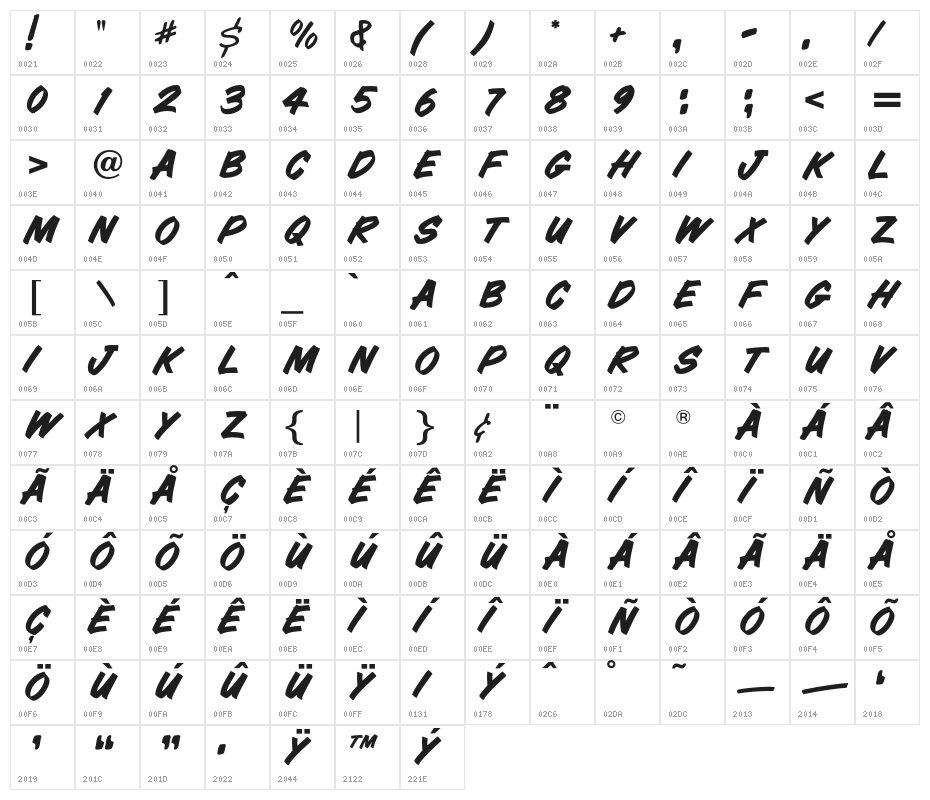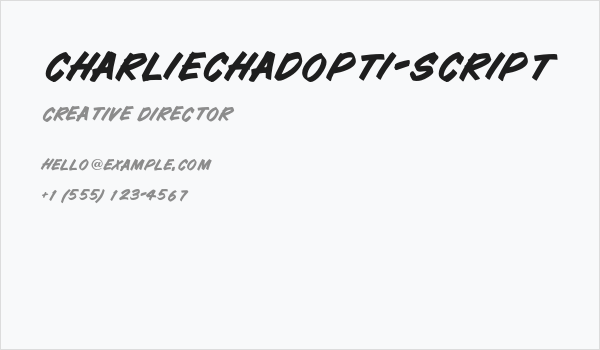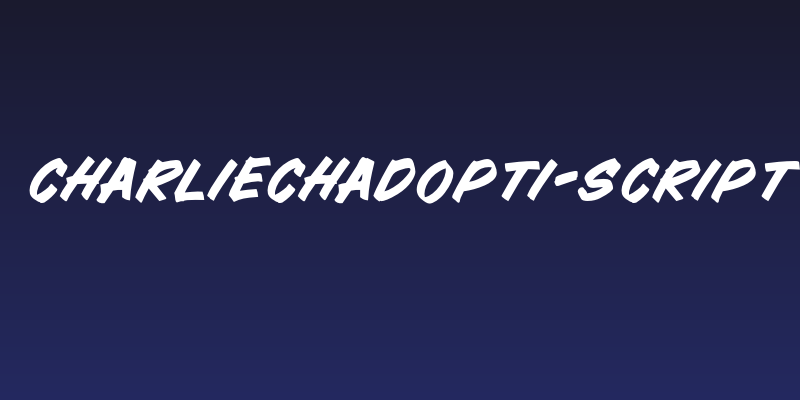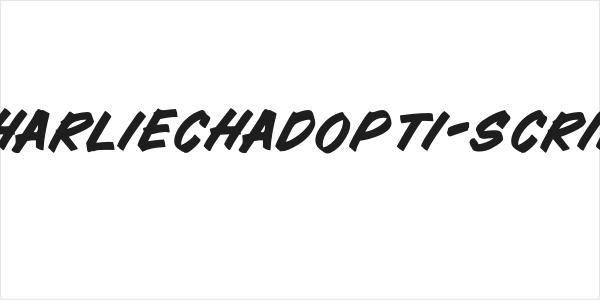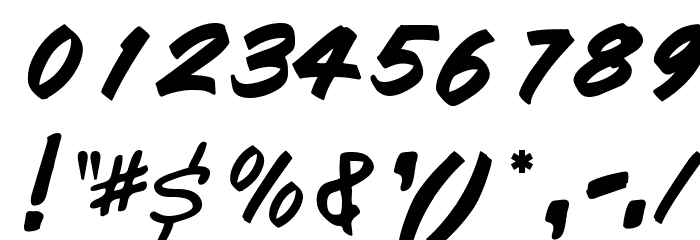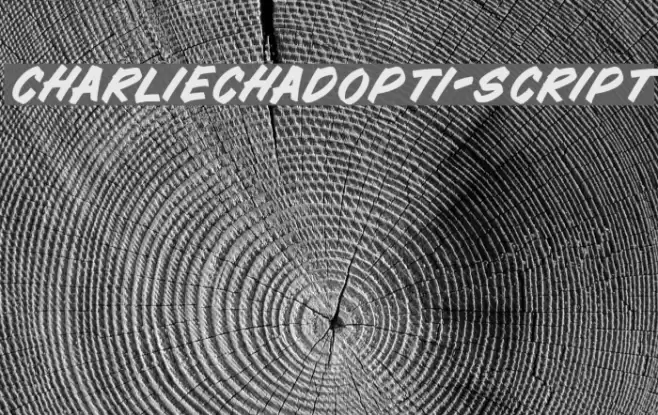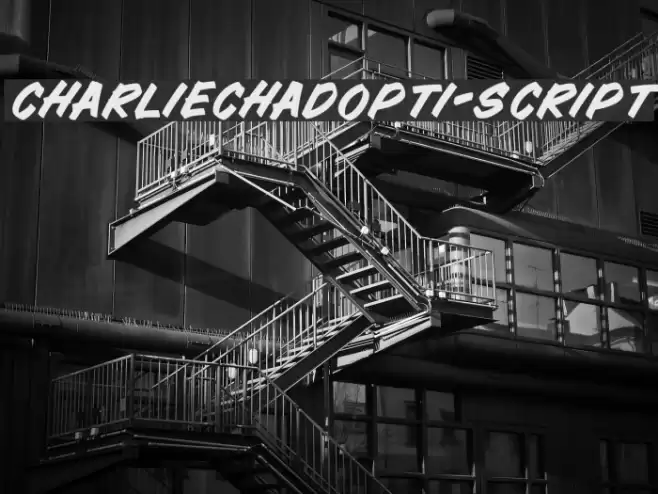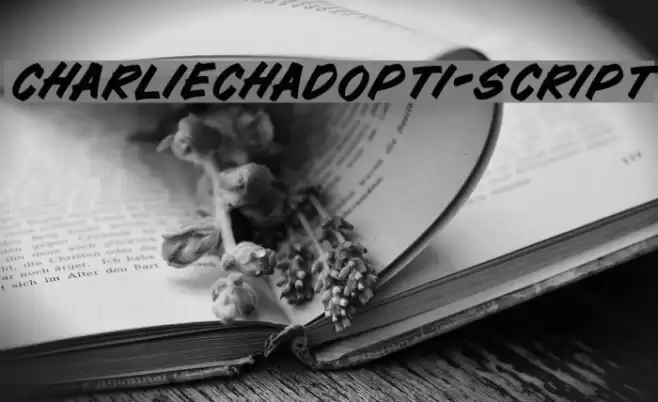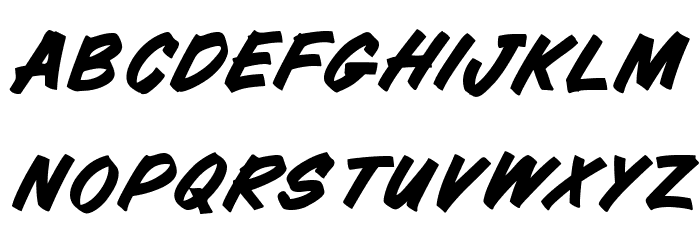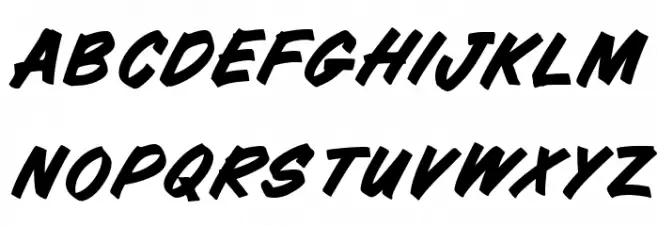
CharlieChadOpti-Script Font
CharlieChadOpti-Script Description
This font features a bold and dynamic script style, characterized by its thick, brush-like strokes that convey a sense of energy and movement. The uppercase and lowercase letters maintain a consistent slant, enhancing the cursive feel. The numbers and special characters are designed with the same boldness, ensuring uniformity across all elements. The overall appearance is both playful and assertive, making it ideal for projects that require a strong visual impact. The font's design is reminiscent of hand-painted signage, offering a touch of nostalgia while remaining modern and versatile.
| Proposed Projects | Ideal for branding, posters, headlines, and any design needing a bold, energetic script. |